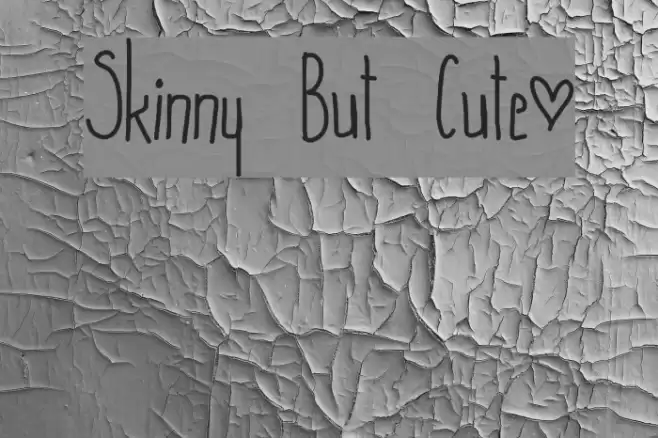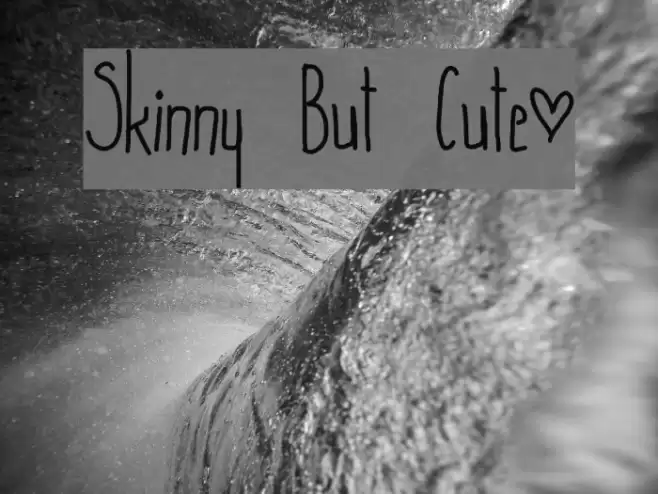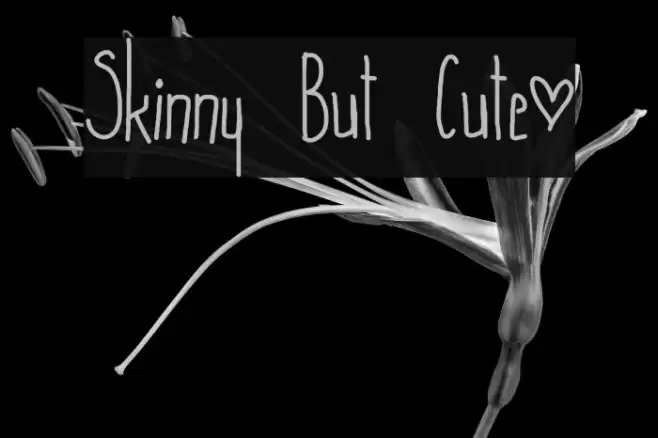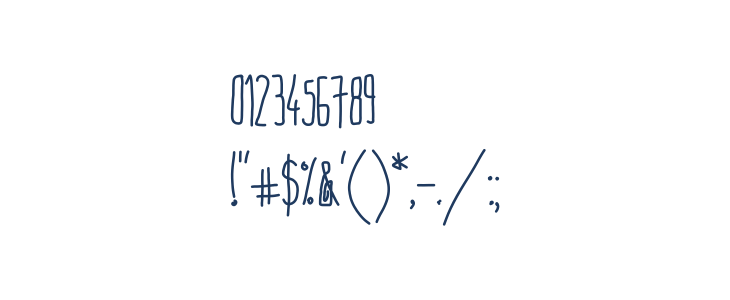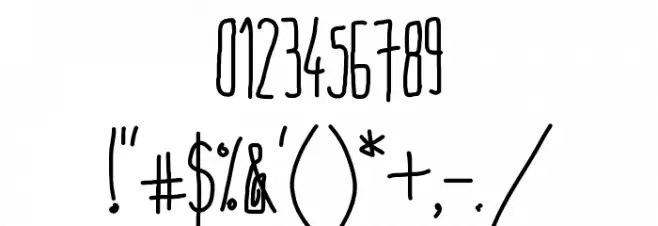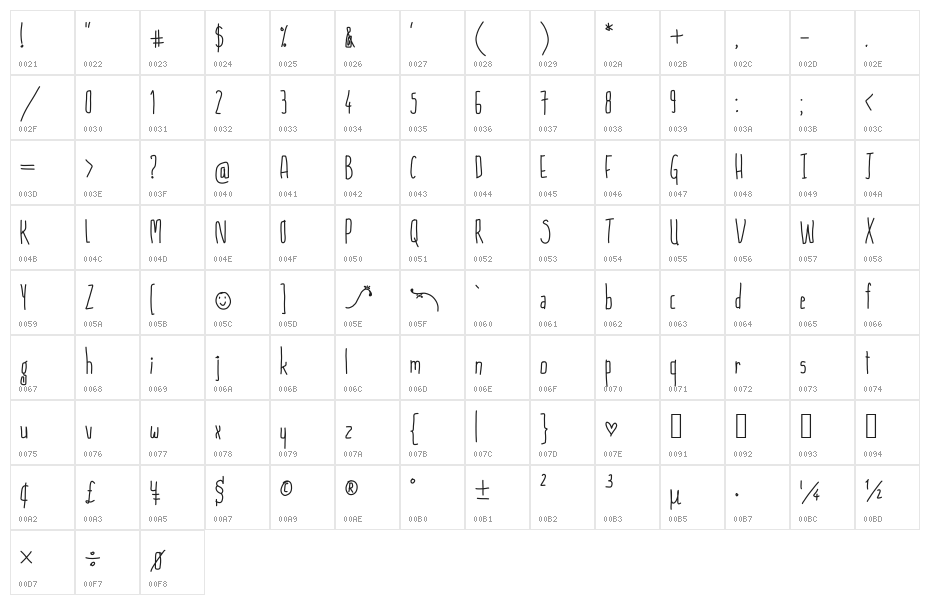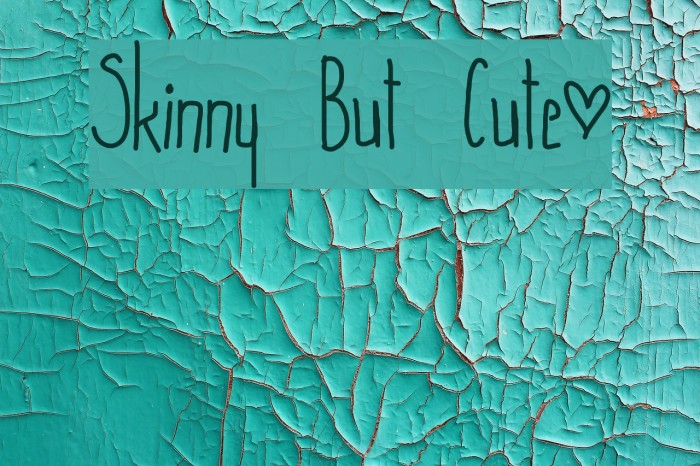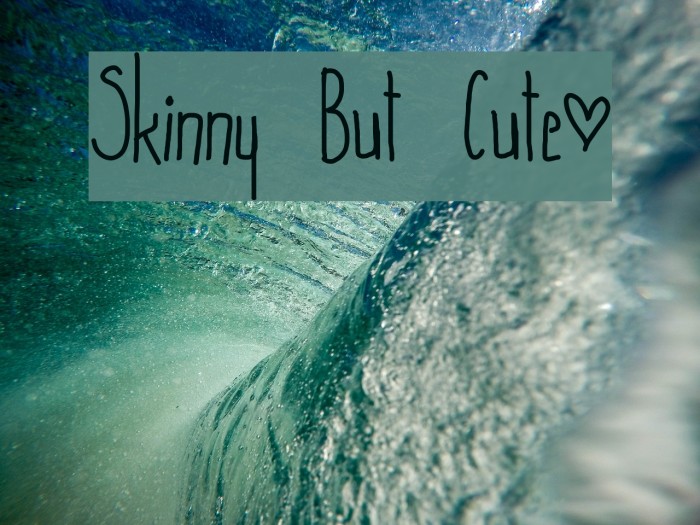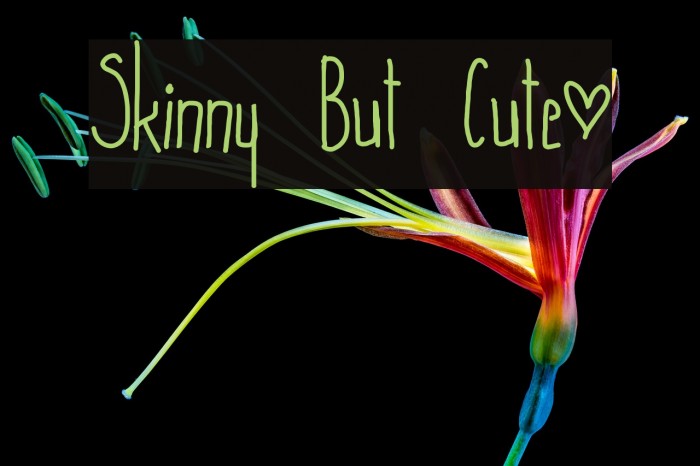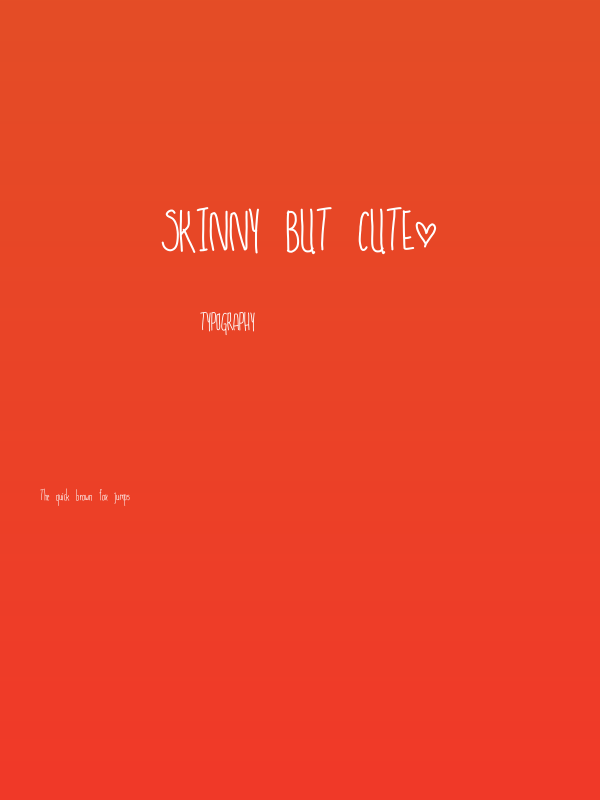
Skinny But Cute~ Font
Skinny But Cute~ Description
This font features a playful and quirky design with tall, narrow characters that give it a unique and whimsical appearance. The letters are slightly irregular, adding a hand-drawn, casual feel. The strokes are thin and consistent, contributing to its light and airy look. The font maintains a consistent height across both uppercase and lowercase letters, creating a cohesive and harmonious appearance. The numerals and special characters follow the same style, ensuring uniformity throughout. This font is perfect for projects that require a touch of personality and charm.
A playful, hand-drawn font with tall, narrow characters and a whimsical style from Uncategorized fonts.
- Proposed Projects: Ideal for children's books, greeting cards, playful branding, and creative posters.
- Weight: Light
- Overall Style: Playful
- Use Case: Headlines, Logos, Creative projects